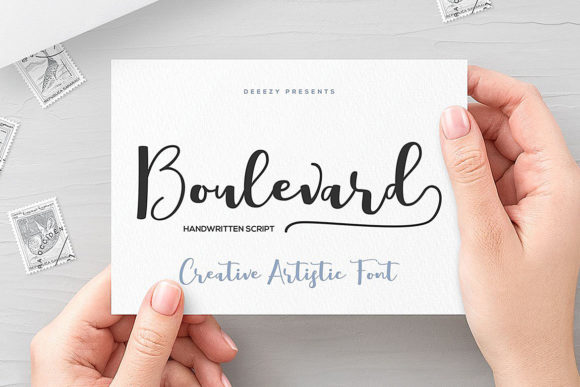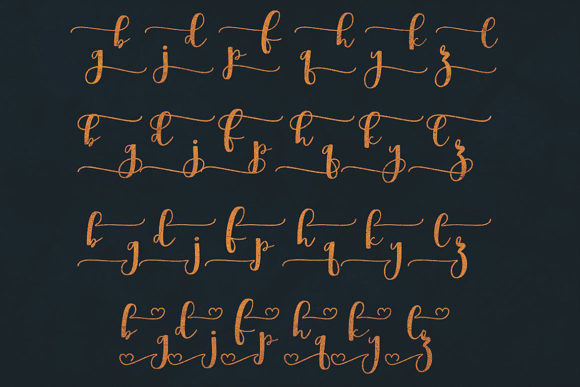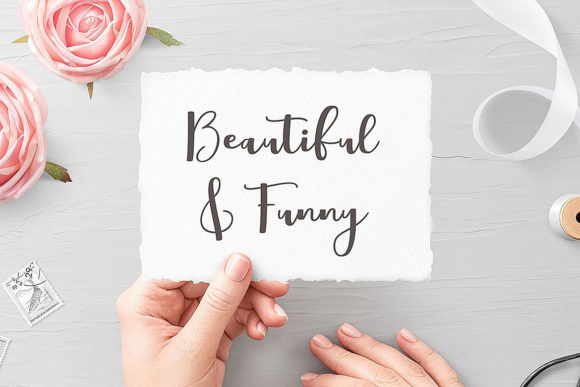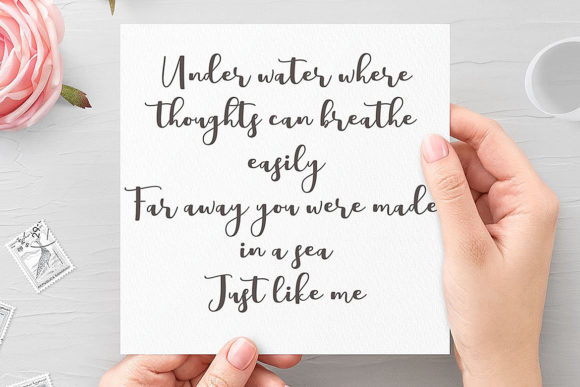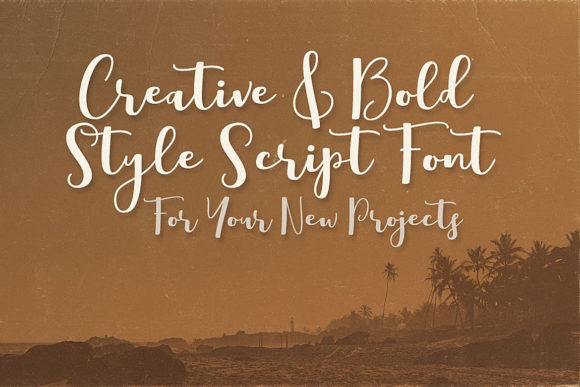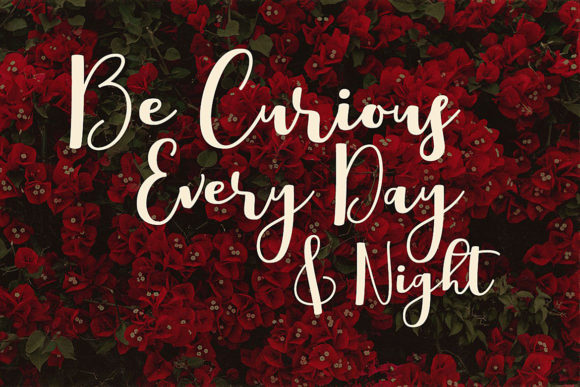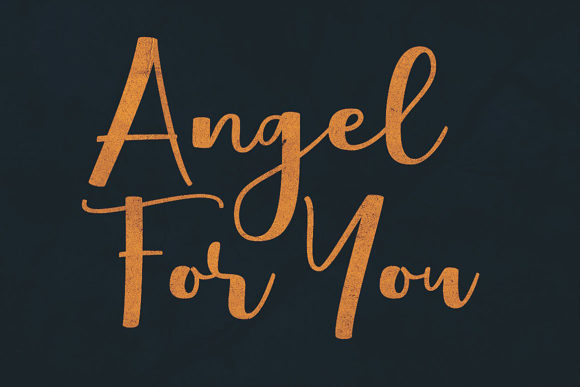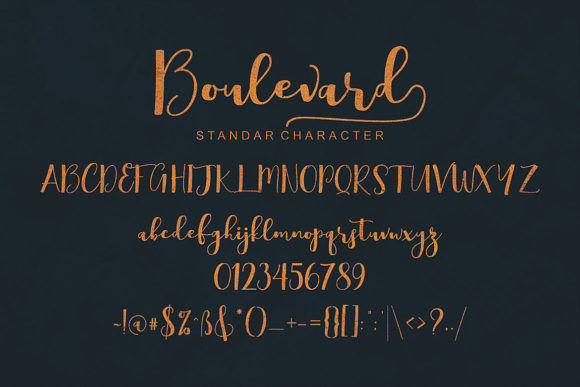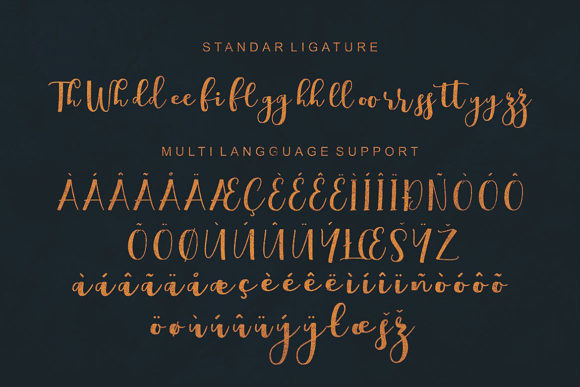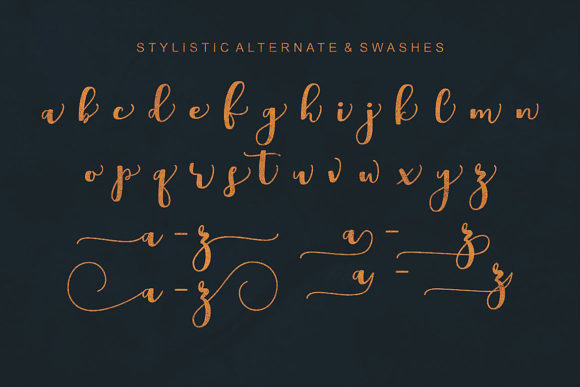
HomeScript FontsBoulevard Font Script Fonts Boulevard Font FacebookXPinterestWhatsApp Boulevard Font Poster 2 Boulevard Font Poster 3 Boulevard Font Poster 4 Boulevard Font Poster 5 Boulevard Font Poster 6 Boulevard Font Poster 7 Boulevard Font Poster 8 Boulevard Font Poster 9 Boulevard Font Poster 10 About Boulevard Font Boulevard is a beautiful and light handwritten font, full of energy! Get inspired by its authentic vibe. DOWNLOAD NOW People also explored Marcella Font Kanohara Font Stay Cool Font Panther Font Catherine Makayla Font Filling Font Sunny Font Deblles Blobsy Bubble Gum Font 354 0 TagsBoulevard Font Previous articleShailene Script FontNext articleEstrela Font LEAVE A REPLY Cancel reply Comment: Please enter your comment! Name:* Please enter your name here Email:* You have entered an incorrect email address! Please enter your email address here Website: Save my name, email, and website in this browser for the next time I comment. Personal Use Free New Normal Personal Use Free Read more about this font Strings Personal Use Free Read more about this font Cokobi Personal Use Free Read more about this font Nickainley Personal Use Free Read more about this font BLOG Elegant Wedding Invitation Fonts – Handwritten & Script Fonts Elegant Wedding Invitation Fonts Your wedding day is one of the most important moments of your life, and every detail matters—including your invitation design. Our... 5 Fonts That Will Dominate Design Trends in 2026 Best Fonts for T-Shirt Design – Top 2025 Picks How to Install and Use Fonts on Windows, macOS, and Web Projects